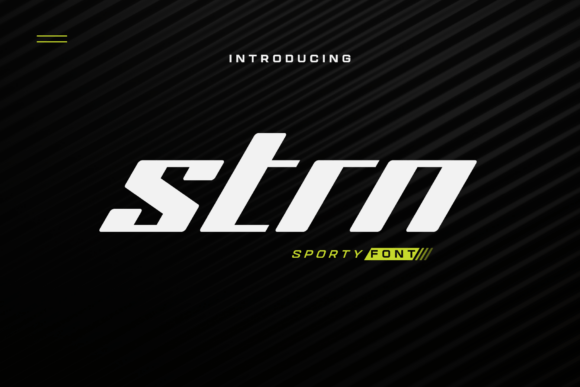
Introducing Strn Font: The Ultimate Typeface for High-Speed Brands
In the world of branding, typography plays a crucial role in conveying a message and establishing a visual identity. For brands that move fast and think faster, a font that embodies motion, agility, and strength is essential. This is where Strn Font comes in – a high-speed, sporty font designed specifically for athletic, automotive, and action-driven visuals.
What is Strn Font?
Strn Font is a modern, sans-serif typeface that exudes a sense of dynamism and energy. Its fast, italicized stance and sharp angles are carefully crafted to evoke a feeling of motion and velocity. This font is perfect for brands that want to convey a sense of speed, agility, and strength.
Key Design Features of Strn Font
- Fast and Italicized Stance: Strn Font features a unique, italicized stance that gives it a sense of movement and energy.
- Sharp Angles: The font’s sharp angles and geometric shapes add to its dynamic and sporty feel.
- Bold and Edgy: Strn Font is designed to be bold and edgy, making it perfect for brands that want to make a statement.
- Futuristic Design: The font’s futuristic design makes it ideal for brands that want to convey a sense of innovation and forward-thinking.
Ideal Use Cases for Strn Font
Strn Font is designed for brands that want to convey a sense of speed, agility, and strength. Here are some ideal use cases for this font:
- Sports Branding: Strn Font is perfect for sports brands that want to convey a sense of energy, movement, and competition.
- Fitness Apparel: The font’s sporty and dynamic feel makes it ideal for fitness apparel brands that want to convey a sense of motivation and energy.
- Dynamic Designs: Strn Font is perfect for dynamic designs that require a bold and edgy typeface, such as action-driven visuals, automotive branding, and technology startups.
Benefits of Using Strn Font
Using Strn Font can bring several benefits to your brand. Here are some of the advantages of using this font:
- Establishes a Strong Visual Identity: Strn Font can help establish a strong visual identity for your brand, setting you apart from competitors.
- Conveys Energy and Movement: The font’s dynamic and sporty feel can help convey a sense of energy and movement, perfect for brands that want to evoke a sense of action.
- Perfect for Digital Media: Strn Font is designed to be highly legible on digital media, making it perfect for use on websites, social media, and mobile apps.
Strn Font vs. Other Fonts
So, how does Strn Font compare to other fonts on the market? Here’s a comparison with some popular fonts:
- Strn Font vs. Arial: While Arial is a classic font, Strn Font is more dynamic and sporty, making it perfect for brands that want to convey a sense of energy.
- Strn Font vs. Helvetica: Helvetica is a popular font, but Strn Font has a more unique and edgy feel, making it perfect for brands that want to stand out.
- Strn Font vs. Impact: Impact is a bold font, but Strn Font has a more futuristic and dynamic feel, making it perfect for brands that want to convey a sense of innovation.
Typography Tips for Using Strn Font
Here are some typography tips for using Strn Font:
- Use it for Headings: Strn Font is perfect for headings and titles, where you want to make a bold statement.
- Pair it with a Sans-Serif Font: Pair Strn Font with a sans-serif font, such as Open Sans or Lato, for a clean and modern look.
- Experiment with Colors: Strn Font looks great in bold and bright colors, so don’t be afraid to experiment with different color schemes.
Strn Font is a high-speed, sporty font designed for brands that move fast and think faster. With its fast, italicized stance and sharp angles, this font embodies motion, agility, and strength. Whether you’re a sports brand, fitness apparel brand, or dynamic design agency, Strn Font is the perfect choice for those who demand a bold, edgy, and futuristic typeface.